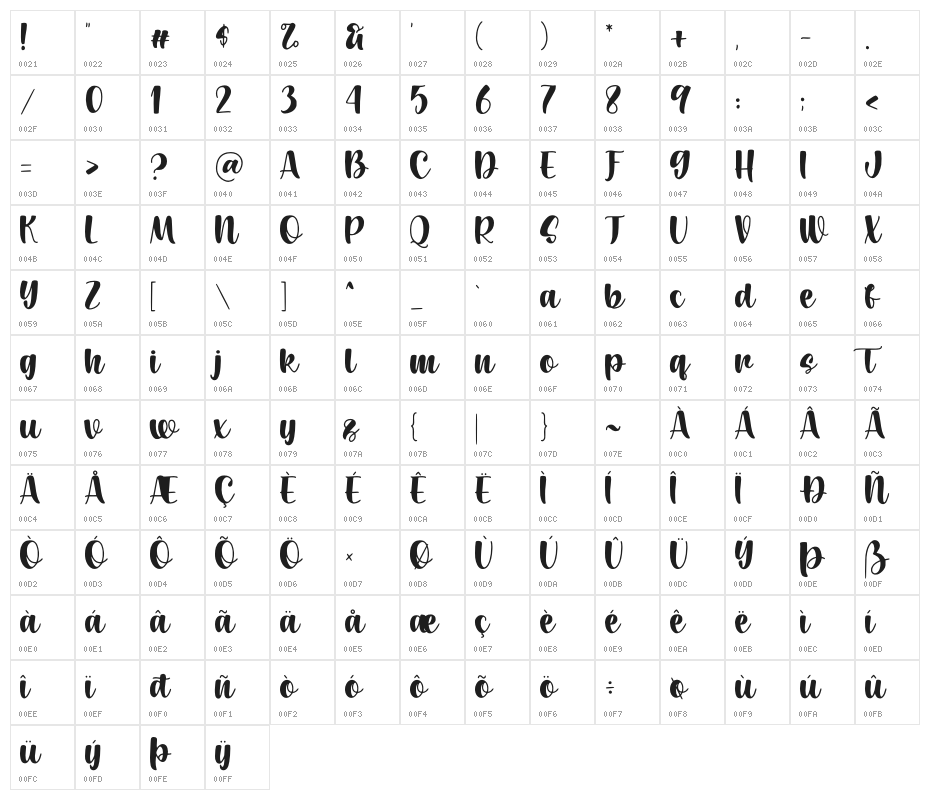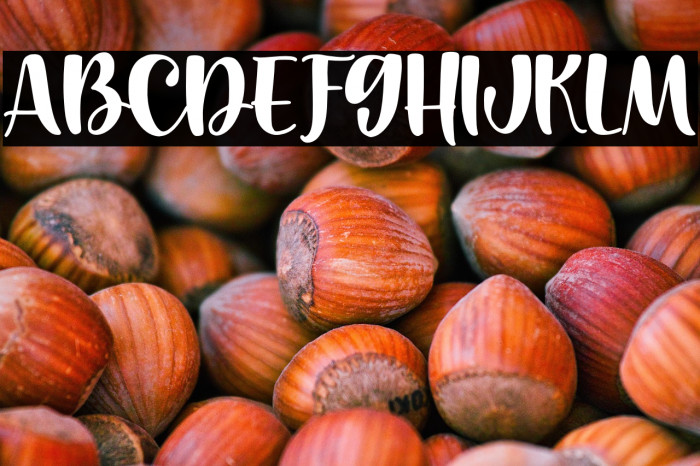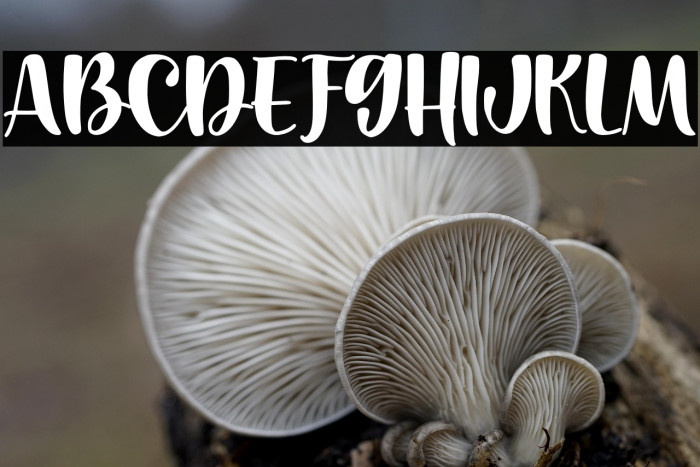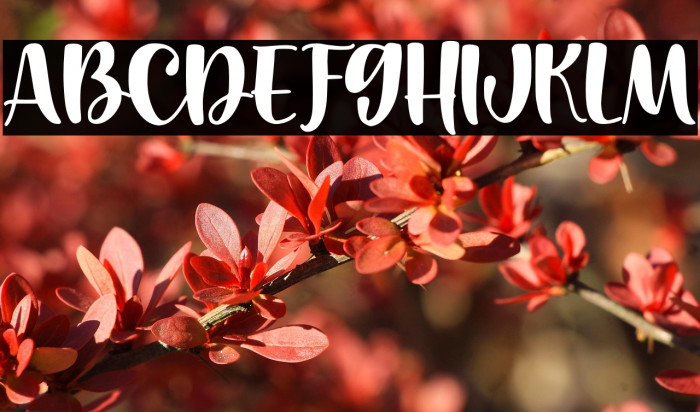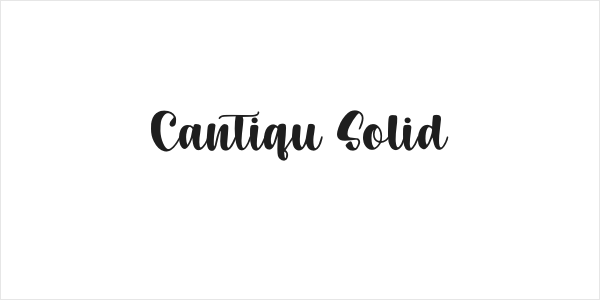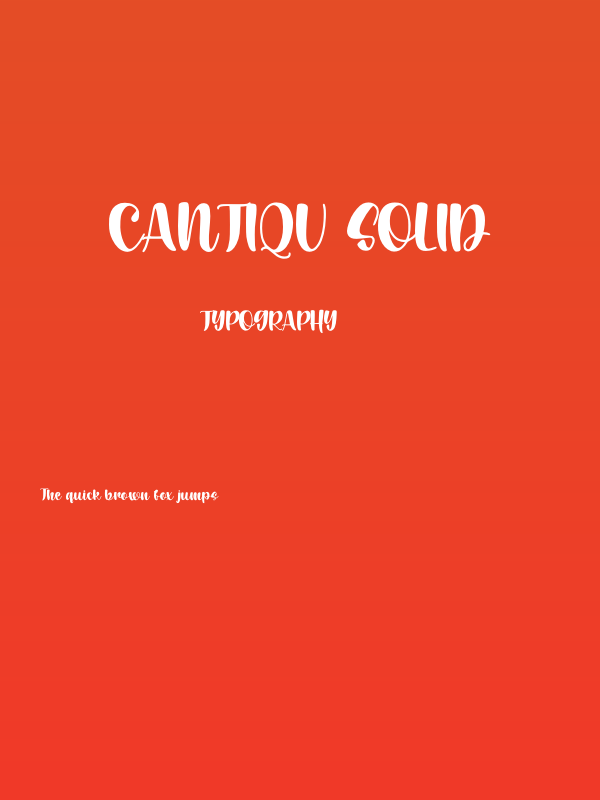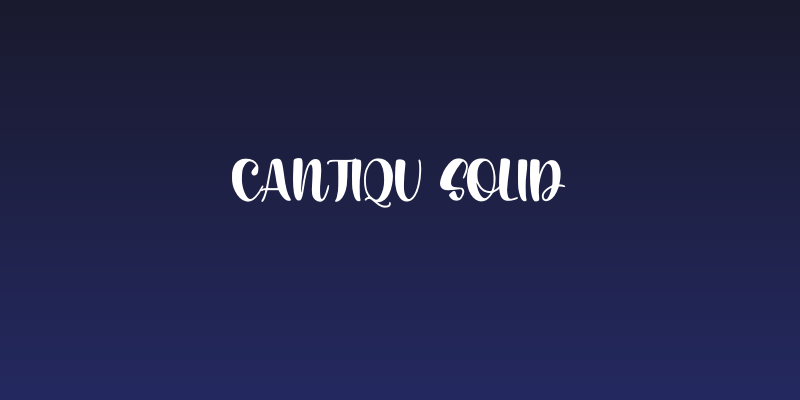
Cantiqu Solid Font
Cantiqu Solid Description
This font features a bold, flowing script style that exudes elegance and creativity. The characters are connected with smooth, sweeping curves, giving it a handwritten appearance. The uppercase letters are slightly more structured, while the lowercase letters maintain a fluid, cursive form. Numbers and special characters are designed to match the overall aesthetic, providing a cohesive look. The thick strokes and high contrast between thick and thin lines enhance its readability while maintaining a decorative flair.